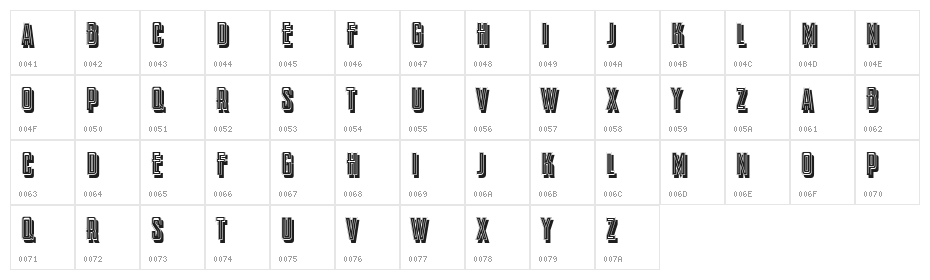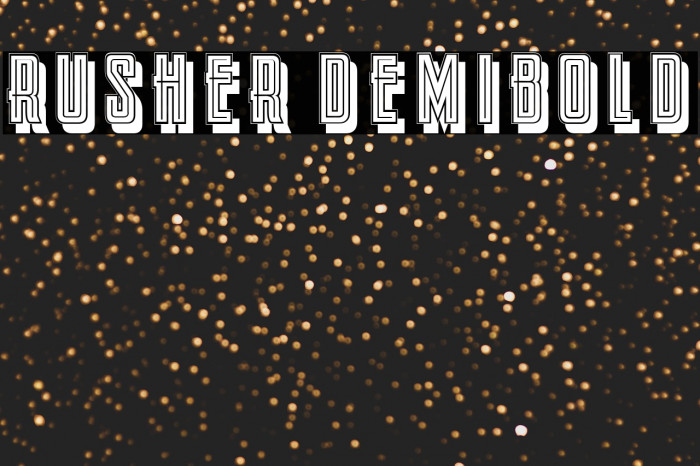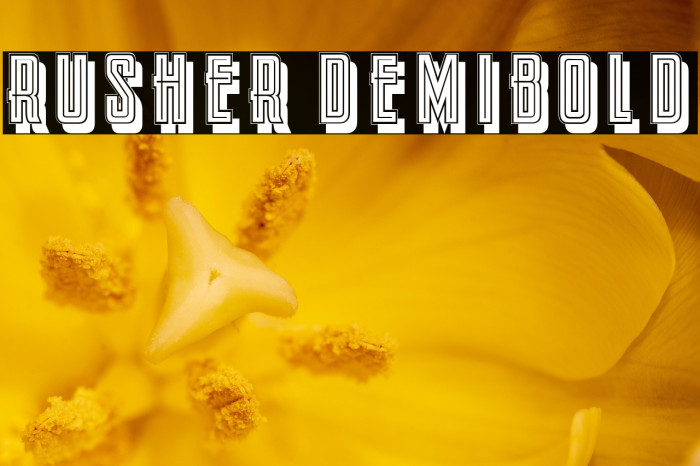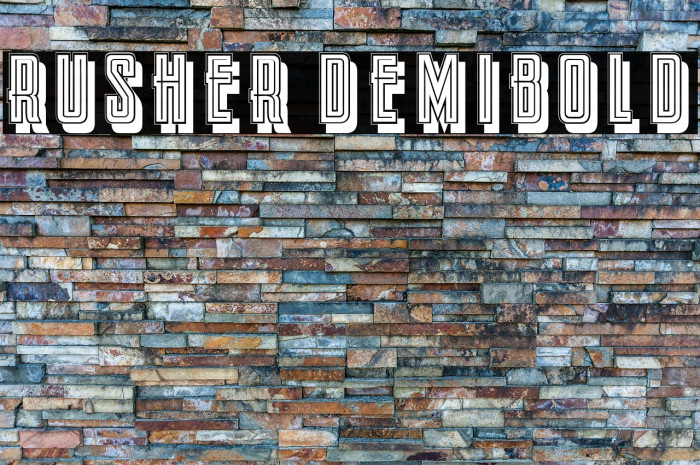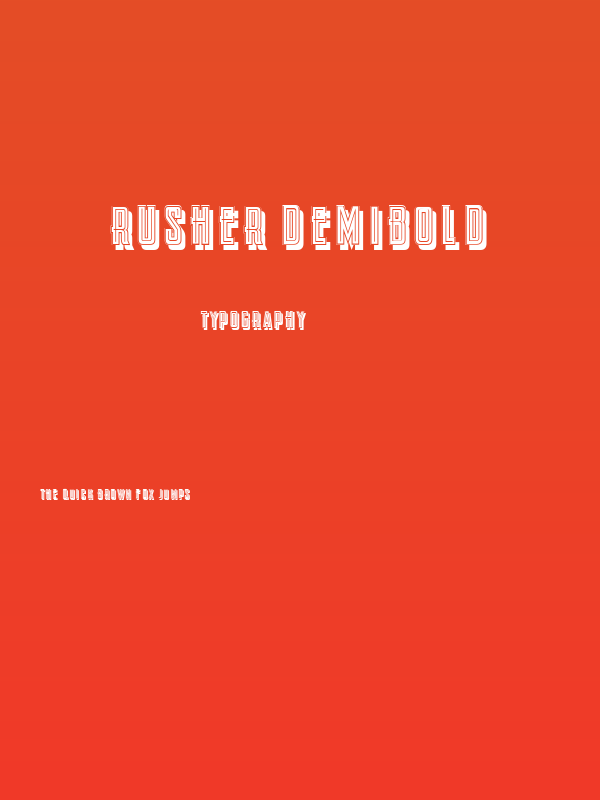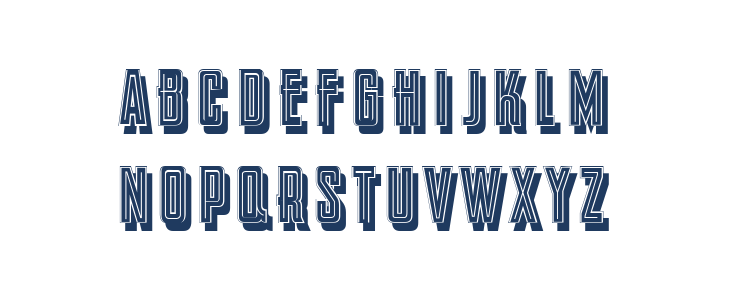
Rusher DemiBold Font
Rusher DemiBold Description
This font features a bold, decorative style with a three-dimensional effect created by its shadowed outline. The uppercase letters are designed with a strong geometric structure, emphasizing vertical and horizontal lines. The font's distinct shadowing adds depth and a sense of movement, making it stand out in any design. Its boldness and unique style make it ideal for eye-catching headlines and titles. The characters are evenly spaced, ensuring readability while maintaining a striking visual impact.
| Proposed Projects | Ideal for posters, logos, and headlines that require a bold and impactful visual presence. |